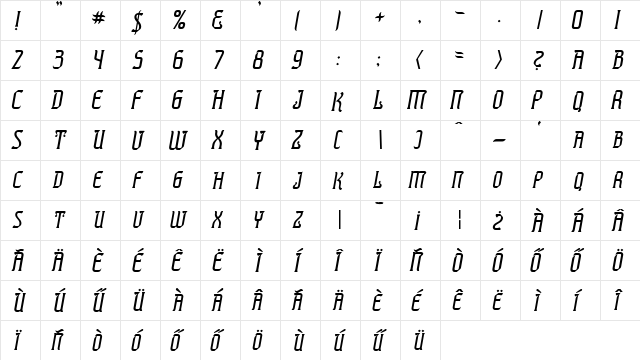
Presidente Tequila Italic
Design Context for Presidente Tequila Typeface
Presidente Tequila is a composed and adaptable typeface that performs quietly and consistently across a wide range of design contexts. Its italic angle brings a sense of urgency and motion to the letterforms.
Pro Tip: Use Presidente Tequila for emphasis, pull quotes, and subheadings where its slanted energy can add rhythm to the layout.